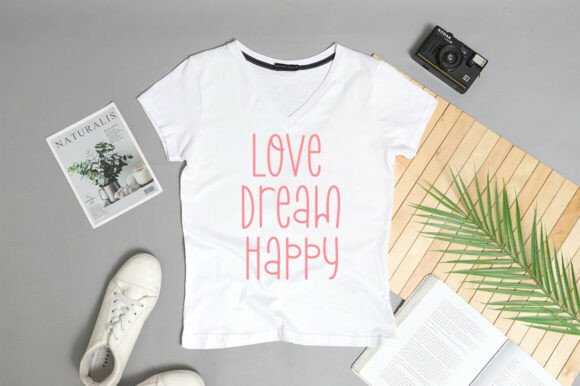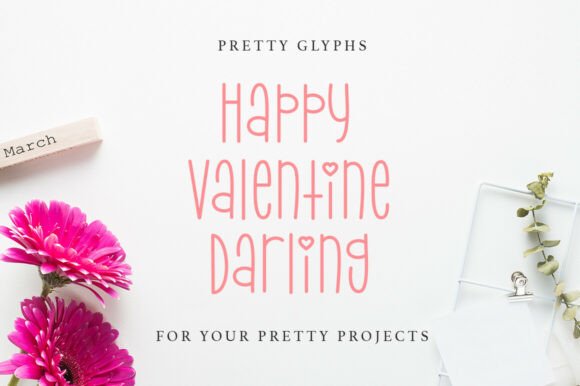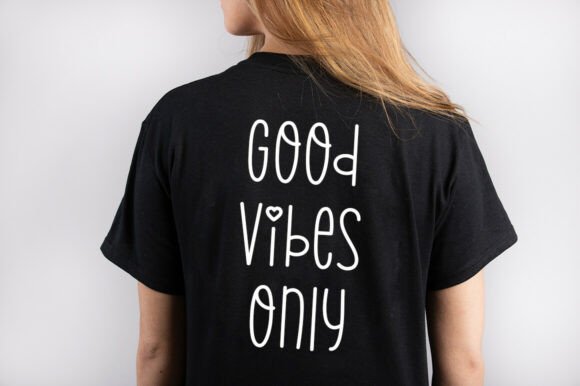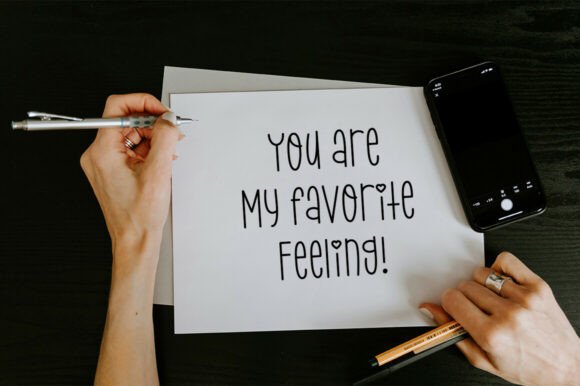
Introduction to Moonlight Queen Font
Embrace the whimsical beauty of Moonlight Queen, a unique, tall handwritten font that sparkles with romantic details.
This typeface is defined by its slender, elongated anatomy and a charming heart-shaped tittle (the dot over the ‘i’ and ‘j’) that adds an instant layer of affection Its “looped” style and upright stance give it a magical, storybook feel, making it a perfect match for bridal shower invitations , custom wedding stationery, and sentimental gift branding.